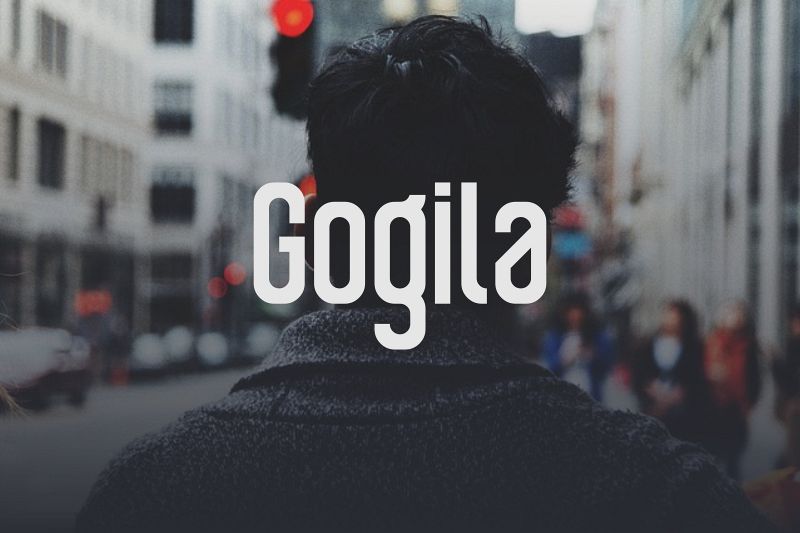
Gogila
Gogila has meaning " Go Crazy". in Indonesian, "Gila means Crazy". these fonts insipred by spirit "you only live once".
so i made it look so brave, strong, bold, and firm.
so, let's Go Gila..
Feature
- Numbers